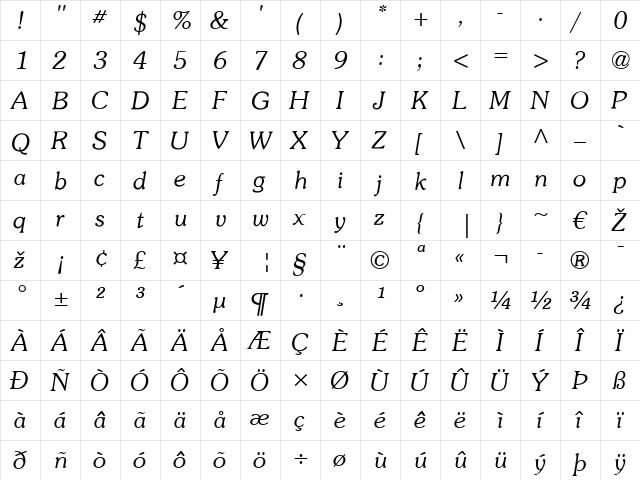
Souvenir LT Italic Font Preview
Design Context for Souvenir LT Typeface
Souvenir LT takes a measured approach to typography — its balanced proportions and neutral character make it a reliable workhorse for both digital and print work. The slanted form adds forward momentum and visual energy. Its slender proportions lend an understated elegance to any composition.
Pro Tip: Try Souvenir LT for annotation and caption copy alongside an upright companion — the contrast in angle creates a dynamic but ordered typographic system.